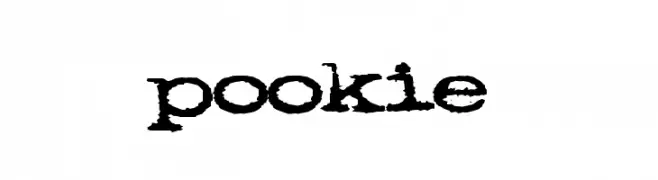
A distressed, vintage typewriter-style font with a grunge aesthetic.
A dynamic, edgy font with sharp, angular strokes and a distressed look.
A dynamic, edgy font with sharp strokes and a slightly distressed look.
A bold, distressed serif font with a rugged, grunge-like appearance.
A bold, angular font with a distressed, dynamic style.
A bold, retro font with a distressed, industrial look.
A bold, distressed font with a grungy, textured appearance.
A bold, distressed typewriter-style font with a vintage, grunge aesthetic.